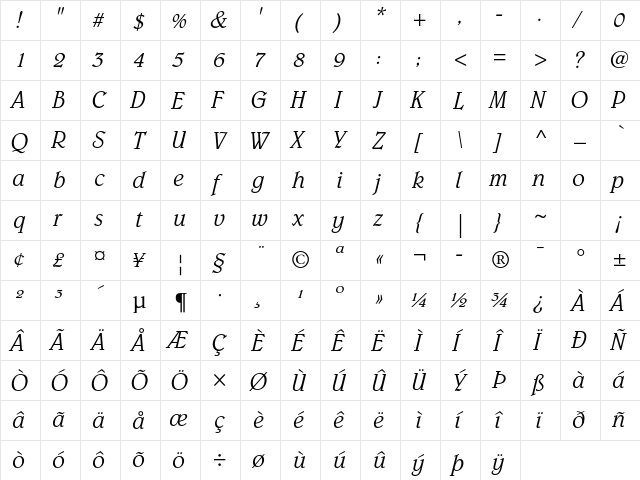
Belwe Std Light Italic
| Designer | George Belwe |
Design Context for Belwe Std Typeface
Belwe Std takes a measured approach to typography — its balanced proportions and neutral character make it a reliable workhorse for both digital and print work. The slanted form adds forward momentum and visual energy. Its slender proportions lend an understated elegance to any composition.
Pro Tip: Use Belwe Std for emphasis, pull quotes, and subheadings where its slanted energy can add rhythm to the layout.